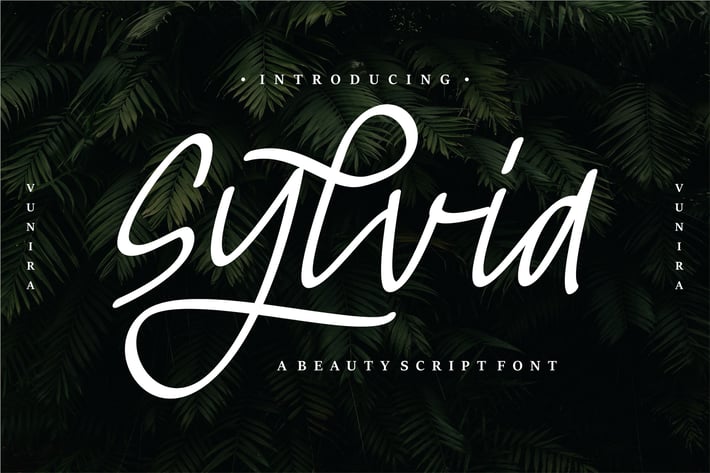
Sylvia | Beauty Script Font
Sylvia | Beauty Script Font with a calligraphy style, So beautiful on invitation like greeting cards, branding materials, business cards, quotes, posters, and more!